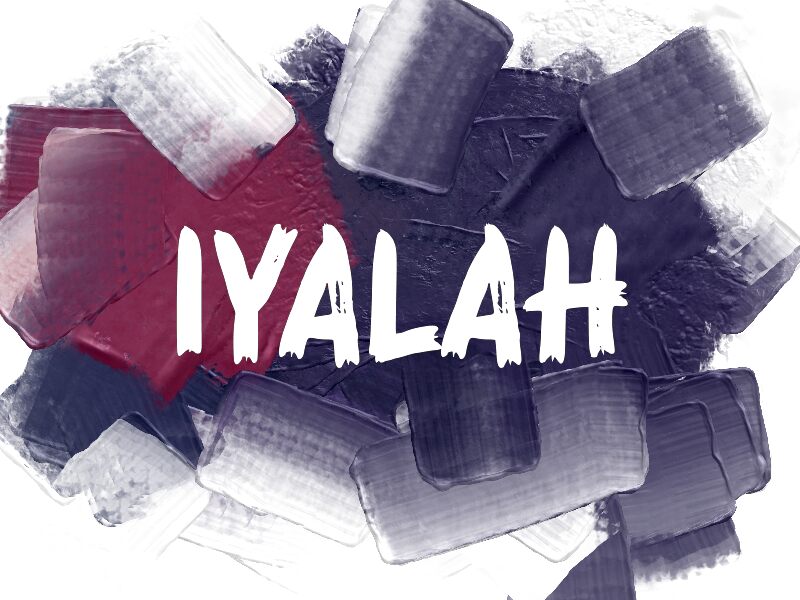
Iyalah
Iyalah font by wep is an artistic brush font that stands out with its unique painterly style. In an energetic and expressive way, it carries a casual modern vibe that instantly takes over the reader’s attention. Combine its textured appearance with the bold letters, and you have a stylish typeface for your various designs.
Many free handwritten fonts exist and Iyalah is one of your few options when you need an artistic style that matches perfectly with modern applications, whether digitally or in print. Prepare to design logos, social media content, quotes, apparel designs (fabrics), typography art pieces like posters and walls, book covers and industrial packaging post-editing!